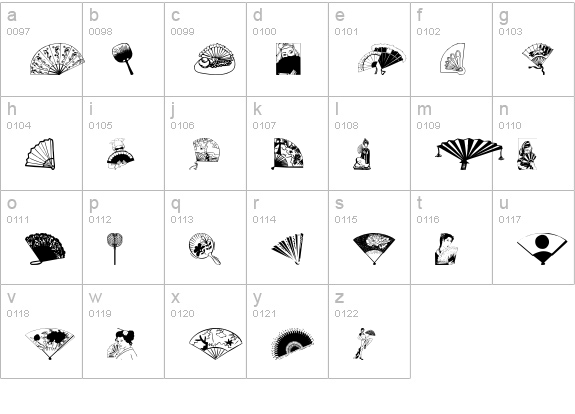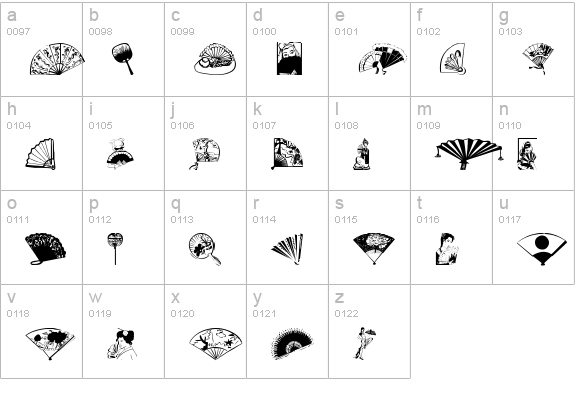
Fans Font Details
Fans font is a modern and stylish typeface that is perfect for adding a touch of sophistication to your designs. With its sleek lines and elegant curves, this font is sure to make a statement. Whether you're creating a logo, poster, or website, Fans font will help you stand out from the crowd. The best part? Fans font is completely free to download at FontsMarket.com. That's right, you can get your hands on this beautiful font without spending a dime. So why wait? Add Fans font to your collection today and take your designs to the next level.